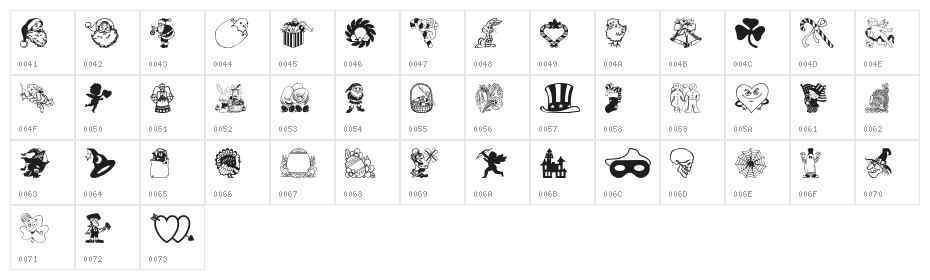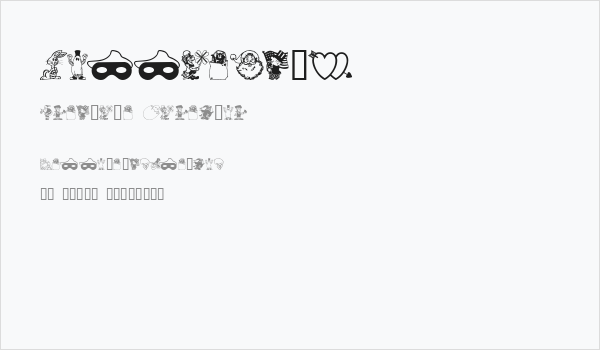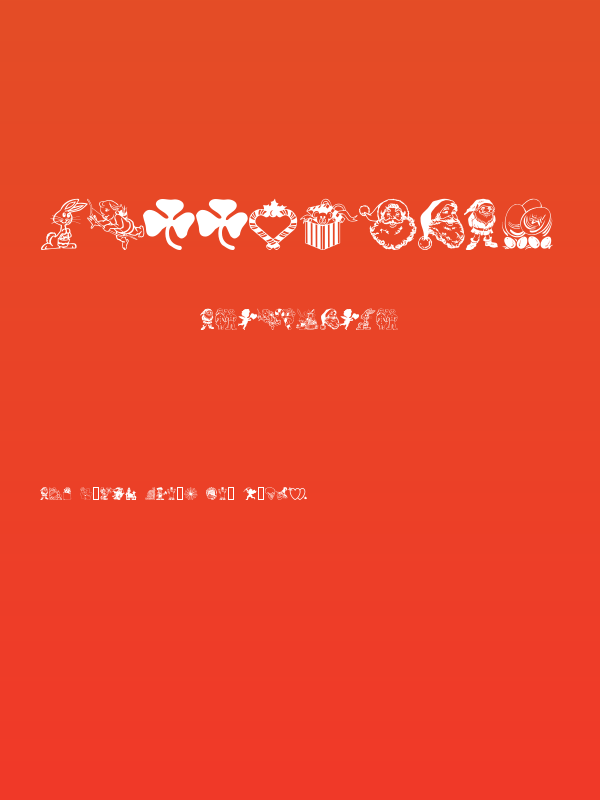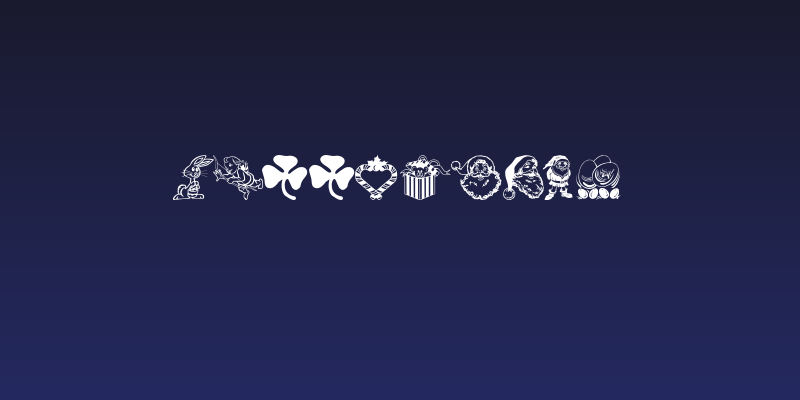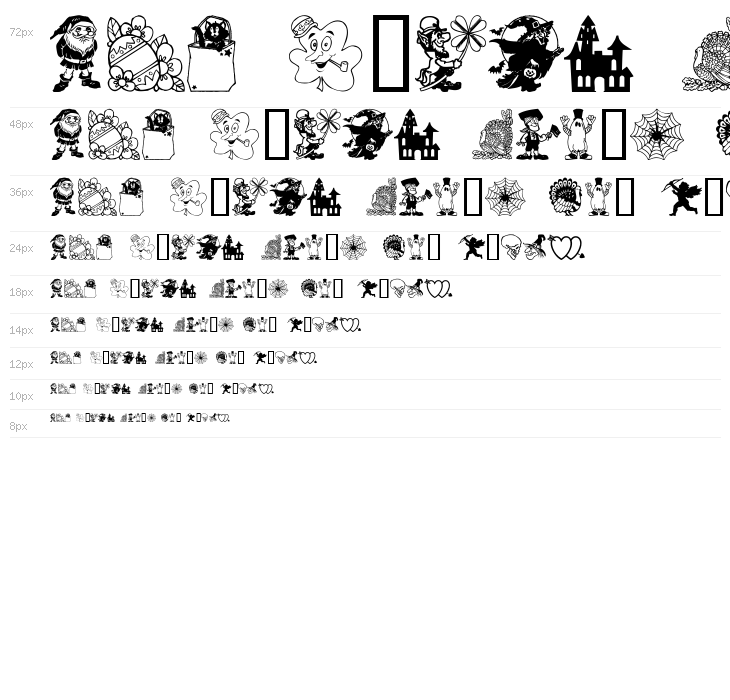
HollieBats Font
HollieBats Description
A decorative dingbat font featuring a collection of themed illustrations such as holiday characters, masks, hearts, and other festive icons. Each glyph represents a unique pictorial symbol rather than standard alphanumeric characters.
| Overall Style | Decorative, Playful |
| Use Case | Icons, Decorative elements, Themed graphics |
| Proposed Projects | Party invitations, holiday cards, event flyers, scrapbooking, themed decorations. |